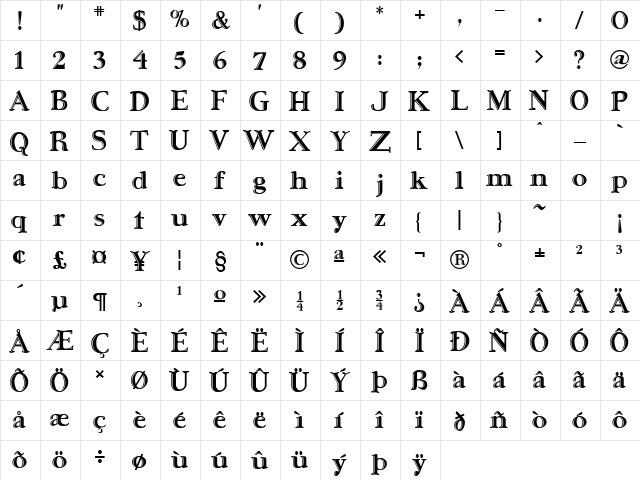
Ursa SerifEngraved Font Preview
Ursa SerifEngraved
Design Context for Ursa Typeface
Ursa is built around its visual character rather than neutral utility — its distinctive forms are designed to make an impression at display sizes.
Font Pairing: Pair with a clean neutral sans-serif for body copy to let Ursa's character lead without overwhelming the composition.
Pro Tip: Use Ursa exclusively at display sizes — it was designed to be seen, not read at length. Let a neutral companion handle body copy.